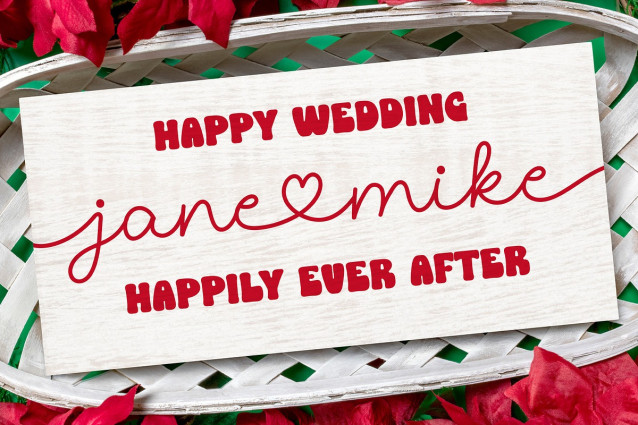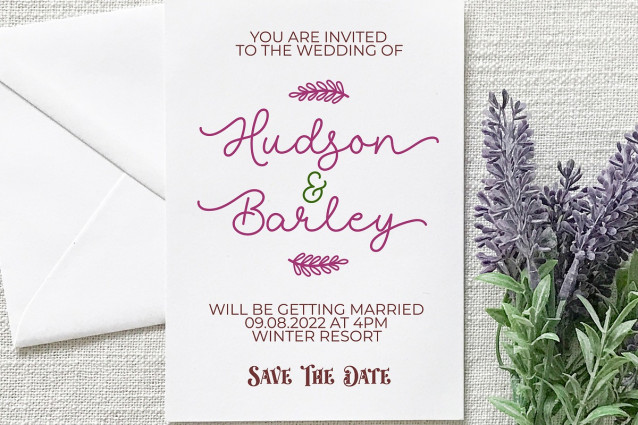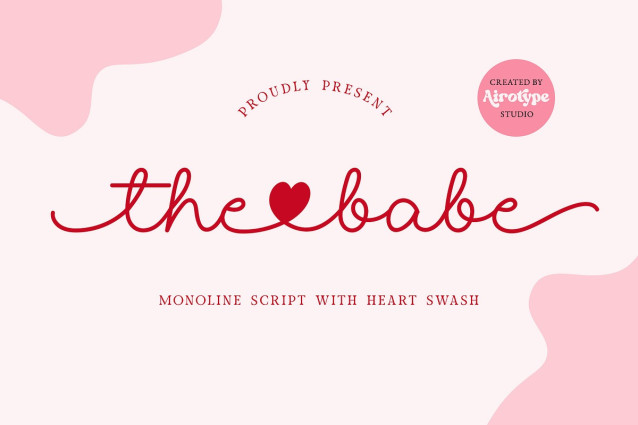
The Babe Script Font
The Babe Script Font is monoline handwritten font with heart swash. This monoline font has sweet and elegant touch.Also, this font has tail for its front swash and back swash.The Babe is suitable font for design that needs cute and lovely vibes, such as Valentines Day, wedding, farmhouse design, and many others.